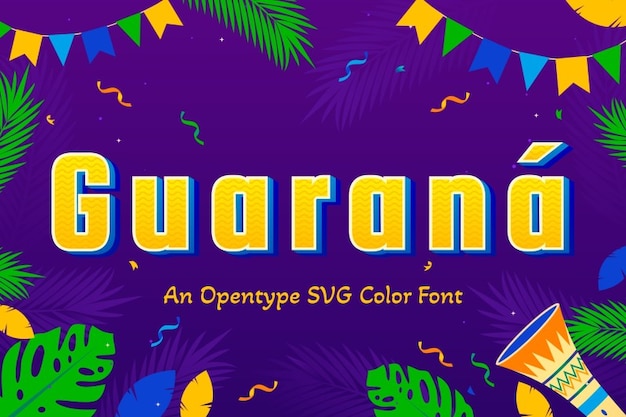
"Guaraná" is a lively font that encapsulates the exuberant spirit of Brazil and Latin American celebrations. Each letter bursts with festive energy, reflecting the vibrancy of parties and carnivals. Perfect for projects celebrating Brazilian culture or Latin American heritage, "Guaraná" adds a joyful and dynamic touch, making it ideal for posters, banners, and designs that capture the colorful and rhythmic essence of these joyous occasions.